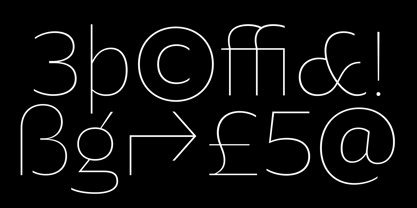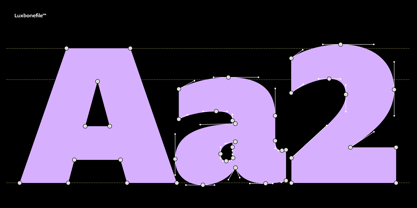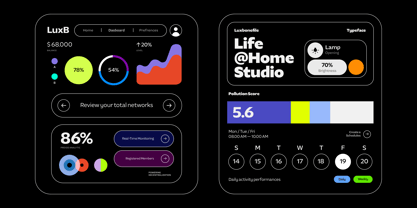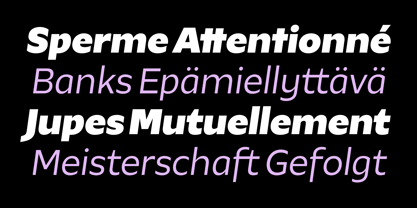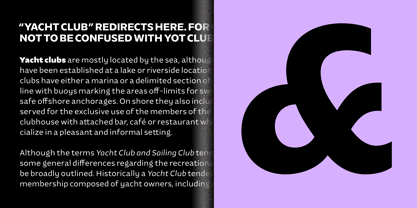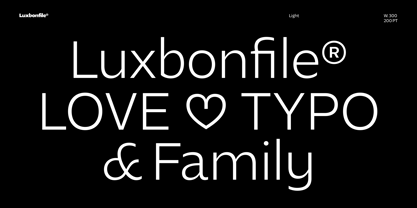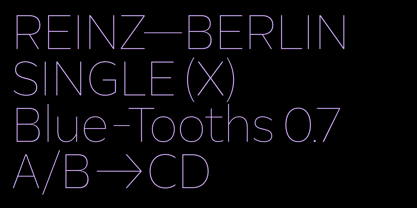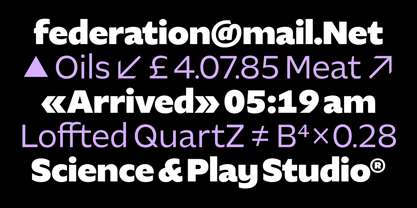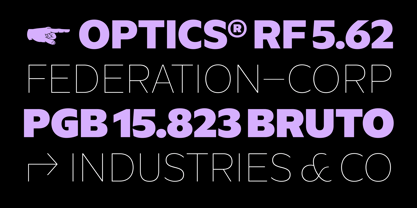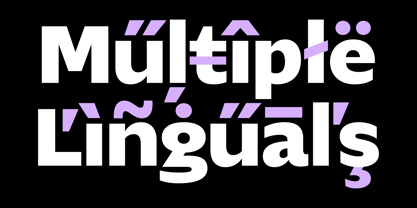
Luxbonfile
by Jet type system
The Luxbonfile Font Family was designed by Mark Bagio and published by Jet type system. Luxbonfile contains 18 styles and family package options. More about this family
Luxbonefile – A Striking Humanist Geometric Typeface with 18 Styles
Luxbonefile is a bold and versatile humanist geometric typeface crafted for visual clarity and modern design needs, its calligraphic construction with vertical stress blends the warmth and rhythm of humanist letterforms with the precision of geometric structure, what truly sets Luxbonefile apart is its distinctive curved lowercase 'g', along with open counters and vertically cut curves, giving the typeface a unique voice that is instantly recognizable and perfect for standout branding
The Luxbonefile family includes 18 styles, ranging from Thin to Black with matching italics, and is equipped with rich OpenType features such as ligatures, case-sensitive forms, fractions, tabular figures, small numerals, stylistic alternates, and more
Luxbonefile is ideal for modern websites and UI typography, company logos and startups, editorial titles and subheadings, app design and mobile interfaces, product packaging and labels, cohesive corporate brand systems